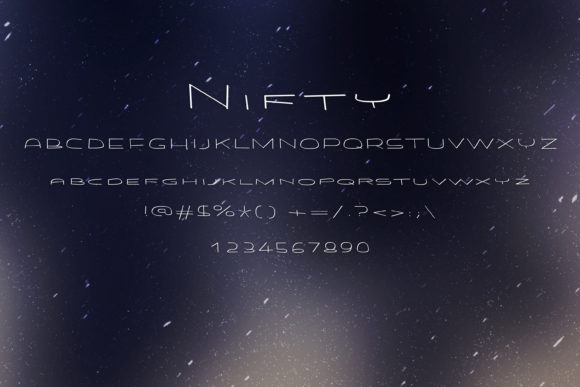
Introduction to Nifty Font
Remember the moment when you’re working on a creative project, and you need that perfect font to bring your vision to life? It’s like searching for a needle in a haystack – you’ve tried countless fonts, but none of them quite capture the essence of your design. That’s when I stumbled upon the Nifty Font, and it was love at first sight.
This charming display font boasts thin letters and sharp corners that exude effortless style. Its transparent background makes it a versatile design resource that can be easily integrated into any project. With its high-quality design, the Nifty Font is a valuable addition to any designer’s toolkit. And the best part? It’s available for free download, making it an instant favorite among creatives.
Whether you’re working on a logo, a poster, or a digital interface, the Nifty Font is sure to bring a touch of elegance and sophistication to your design. In this article, we’ll dive deeper into the world of this delightful font and explore its many uses and benefits.
Key Features of Nifty Font
- Nifty Font is a high-quality, free design resource ideal for creative projects requiring unique typography.
- This font features a transparent background, making it versatile for use on various backgrounds.
- The font size is scalable, allowing for easy adjustment to suit your design needs.
- Nifty Font has a high resolution of 300 DPI, ensuring crisp and clear text display.
- Its unique characteristics include a modern and minimalist design aesthetic, making it suitable for a wide range of creative projects.
Honest Review: Nifty Font
I recently stumbled upon the Nifty Font and I’m excited to share my honest review with you. As a designer, I’m always on the lookout for high-quality design resources that can elevate my creative projects.
- ✨ Unique and stylish design that stands out from the crowd
- ✨ Transparent background, making it easy to use in various design scenarios
- ✨ Great for creating eye-catching titles, headings, and quotes
- ⚠️ Limited font styles and weights, which may not be ideal for complex designs
- ⚠️ Not suitable for body text, as it can be difficult to read in large blocks
Overall, I’m impressed with the Nifty Font. While it may not be a one-size-fits-all solution, it’s perfect for adding a touch of elegance and sophistication to your creative project. The transparent background and unique design make it a great asset for designers looking to add some flair to their work.
Nifty Font
Tips for Getting the Most Out of Nifty Font
To get the most out of Nifty Font, try using it in combination with other design elements to create a unique and eye-catching look. Experiment with different font sizes, colors, and arrangements to find the perfect combination for your project.
Nifty Font is perfect for a variety of projects, including:
- Blog posts and articles
- Marketing materials and social media graphics
- Infographics and data visualizations
Alternatives to Nifty Font
The Great Vibes Font is a beautiful, handwritten script font that’s perfect for creative projects requiring a personal touch. Its transparent background and high-quality design make it a great alternative to Nifty Font. Great Vibes Font is ideal for use in headings, titles, and other design elements where a unique, handwritten feel is desired.
Great Vibes Font compares to Nifty Font in its elegance and sophistication, but differs in its more casual, handwritten style. While Nifty Font is ideal for modern, sleek designs, Great Vibes Font is better suited for more creative, artistic projects.
The Alex Brush Font is a high-quality, elegant script font that’s perfect for use in design projects requiring a touch of sophistication. Its transparent background and beautiful, handwritten style make it a great alternative to Nifty Font. Alex Brush Font is ideal for use in headings, titles, and other design elements where a unique, elegant feel is desired.
Alex Brush Font compares to Nifty Font in its elegance and sophistication, but differs in its more refined, high-end style. While Nifty Font is ideal for modern, sleek designs, Alex Brush Font is better suited for more high-end, luxury projects.
Is Nifty Font high quality and suitable for print projects?
Yes, Nifty Font is a high-quality design resource that is suitable for both digital and print projects. The font is carefully crafted to ensure that it looks great at various sizes and resolutions, making it perfect for use in business cards, brochures, and other print materials.